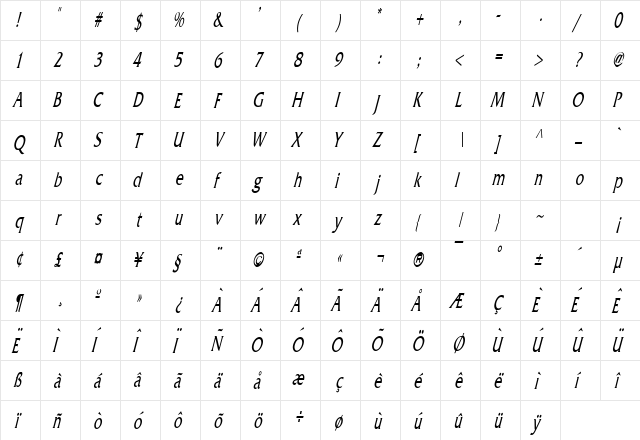
Franco Thin Italic Font Preview
Design Context for Franco Thin Typeface
Franco Thin takes a measured approach to typography — its balanced proportions and neutral character make it a reliable workhorse for both digital and print work. The dynamic lean of this cut emphasises speed and emphasis in any layout. The delicate stroke weight brings airiness and refinement to layouts.
Pro Tip: Try Franco Thin for annotation and caption copy alongside an upright companion — the contrast in angle creates a dynamic but ordered typographic system.